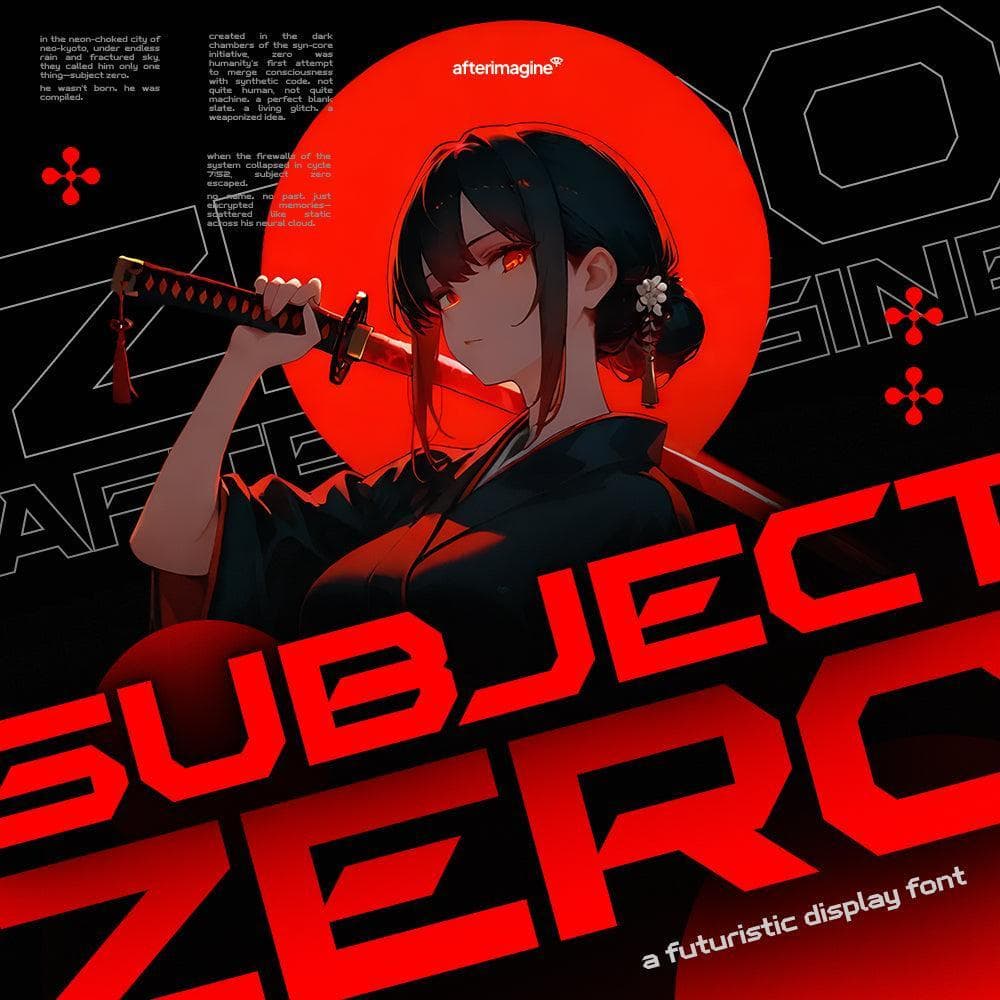
<p>Bold techno font with sci-fi energy and digital edge.</p> <p>Subject Zero is a futuristic display font designed to bring a bold, high-tech feel to your projects. With its angular forms, sharp lines, and sci-fi aesthetics, this typeface is perfect for tech branding, game titles, posters, and cyberpunk designs. Whether you’re working on a movie poster or a digital UI concept, Subject Zero delivers an edgy and powerful typographic presence.</p> <p><strong>What’s inside?</strong></p> <ul> <li>Uppercase letters A–Z</li> <li>Numbers 0–9</li> <li>Punctuation and Symbols</li> <li>Multi Language (Diacritics)</li> <li>OTF, WOFF, WOFF2, EOT & TTF files</li> </ul> <p><strong>Important</strong>: Model images and photos are for presentation purposes only and are not included in the files.</p>